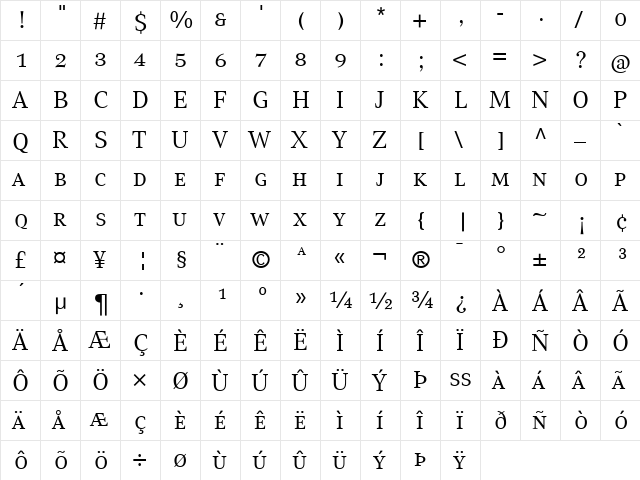
CompatilText LT Regular
Design Context for CompatilText LT Typeface
CompatilText LT is a composed and adaptable typeface that performs quietly and consistently across a wide range of design contexts. Its slender proportions lend an understated elegance to any composition.